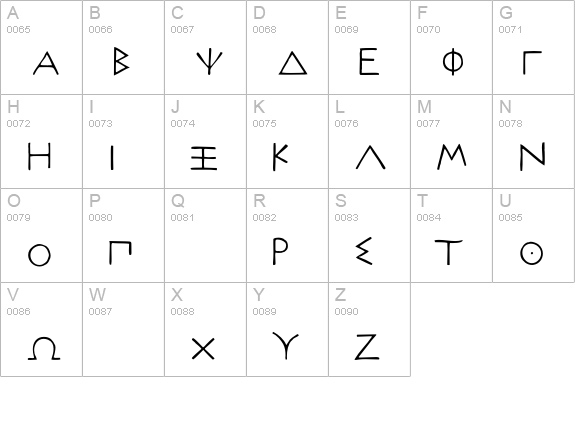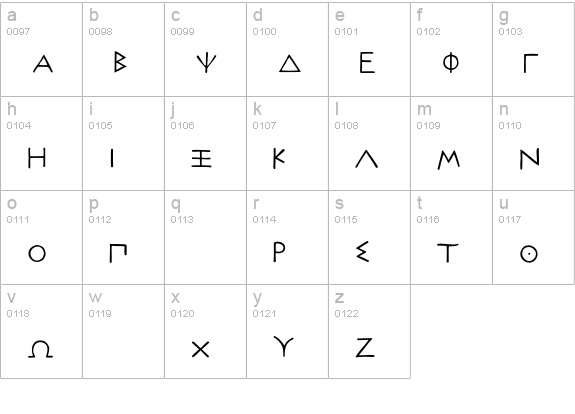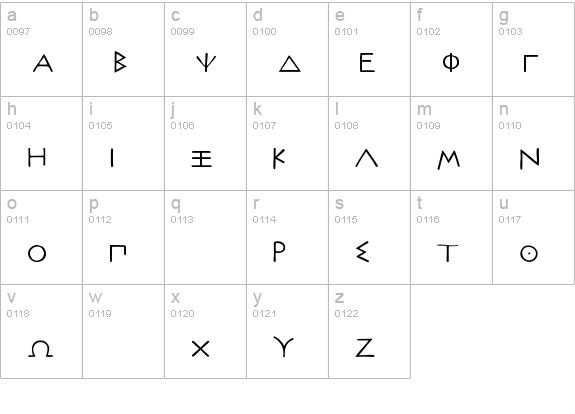
AcropolisThen Font Details
AcropolisThen font is a stunning display typeface that exudes elegance and sophistication. Its intricate details and timeless design make it perfect for adding a touch of class to your projects. With its classic yet modern appeal, AcropolisThen font is sure to make a statement wherever it is used. The best part? AcropolisThen font is available for free download at FontsMarket.com. This means you can easily access this beautiful font and elevate your designs without any cost. Whether you're working on branding, advertising, invitations, or any other creative project, AcropolisThen font is a versatile choice that will undoubtedly impress. Download this exquisite font today and let your creativity shine with AcropolisThen.